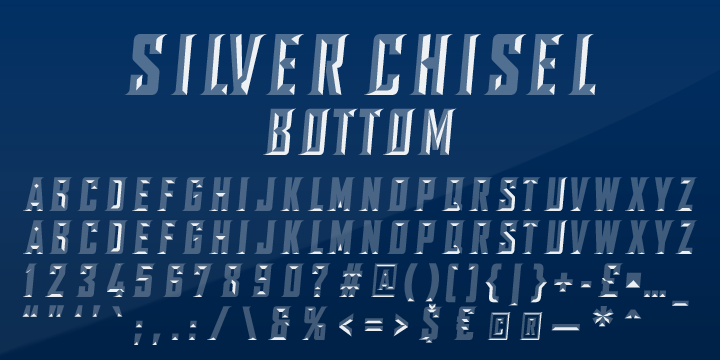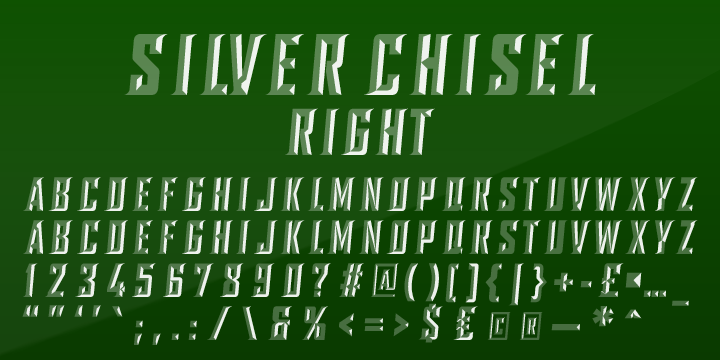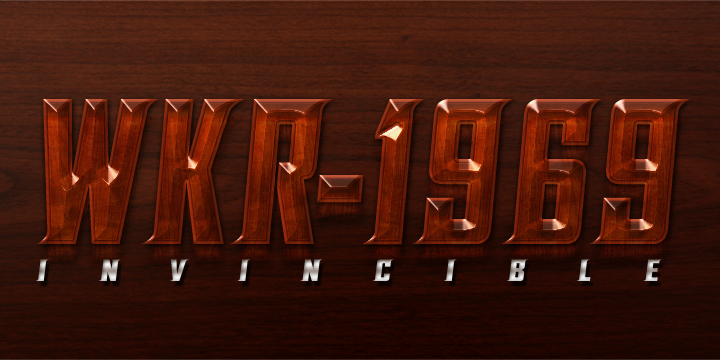
SILVER CHISEL
SILVER CHISEL is a display and novelty font family. This typeface has eight styles and was published by Cerri Antonio.
SILVER CHISEL regular, outline and beveL, is an 3 font system that can be layered in different ways to create a infinite title effects used commonly in poster and 3D logo design.
Silver Chisel’s layer combinations give you complete control in producing styles like, outline, 3D, beveled.
It can be used alone and/or in layered and  allows you adjust leading and kerning.
Each font contains the similar metrics, so when your title is set, copy and paste-in-place to create layers of different weights/styles to build out your desired effect.
Silver Chisel works great in any graphics application that allows you to utilize layers or 3D effects.
Displaying the beauty and characteristics of the SILVER CHISEL font family.
Highlighting the SILVER CHISEL font family.
SILVER CHISEL font family sample image.
SILVER CHISEL is a an eight font family.
SILVER CHISEL font family example.
SILVER CHISEL font family sample image.
SILVER CHISEL is an eight font, display and novelty family by Cerri Antonio.
SILVER CHISEL is a display and novelty font family.
This typeface has eight styles  and was published by Cerri Antonio.
SILVER CHISEL regular, outline and beveL, is an 3 font system that can be layered in different ways to create a infinite title effects used commonly in poster and 3D logo design. Silver Chisel’s layer combinations give you complete control in producing styles like, outline, 3D, beveled. It can be used alone and/or in layered and allows you adjust leading and kerning. Each font contains the similar metrics, so when your title is set, copy and paste-in-place to create layers of different weights/styles to build out your desired effect.
Silver Chisel works great in any graphics application that allows you to utilize layers or 3D effects.